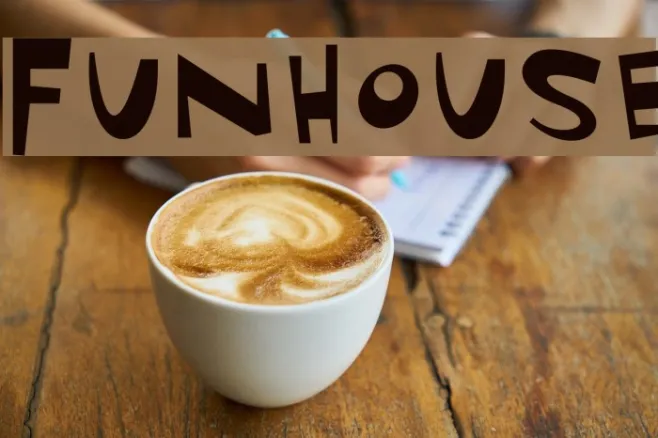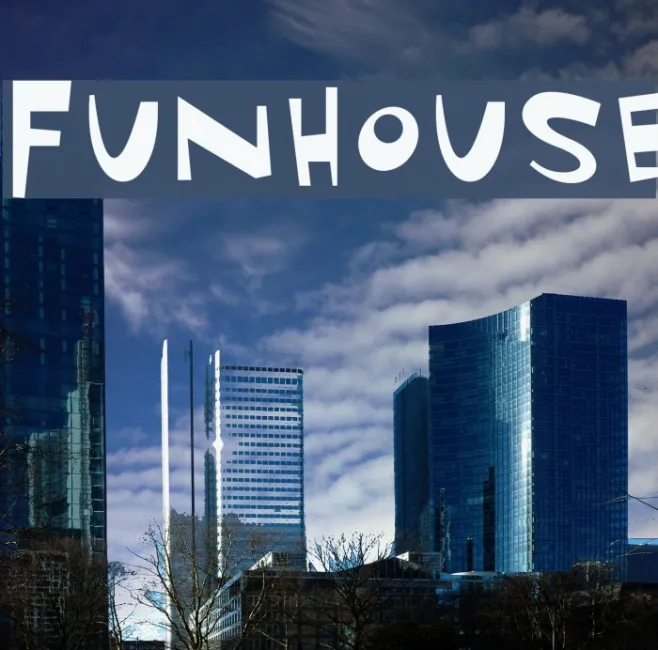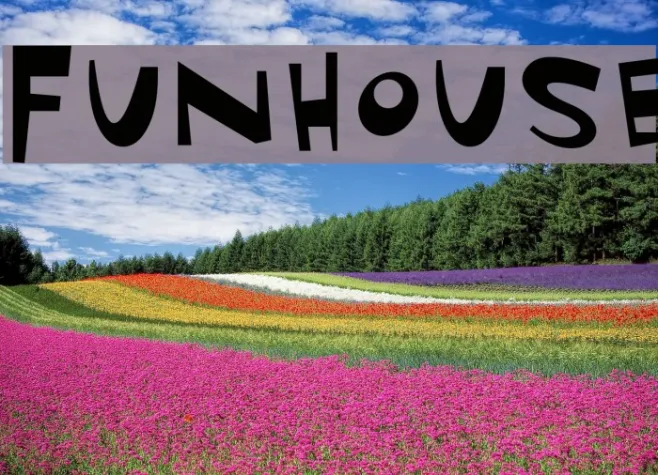
Funhouse Font
Funhouse Description
This playful and whimsical font features irregular, exaggerated strokes that give it a lively and energetic appearance. The characters are bold and slightly tilted, creating a sense of movement and fun. The uppercase and lowercase letters maintain a consistent style, with sharp angles and curves that add to the dynamic feel. Numbers and special characters are designed to match the quirky style, making the font suitable for creative and informal projects. Its unique design makes it stand out, perfect for capturing attention and conveying a sense of joy and excitement.
| Proposed Projects | Ideal for children's books, party invitations, comic strips, and playful branding. |